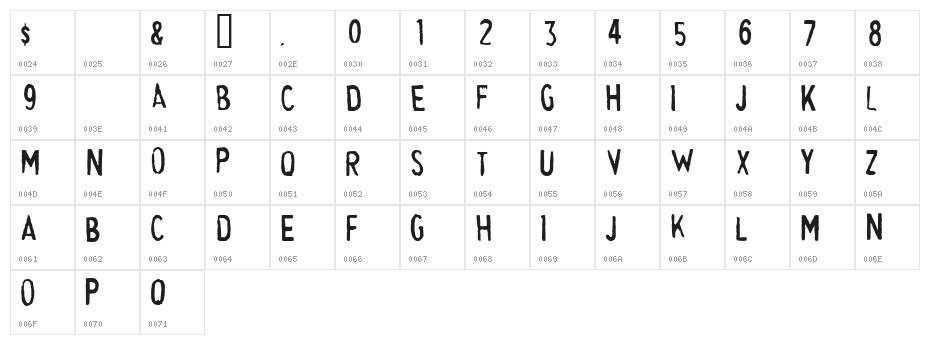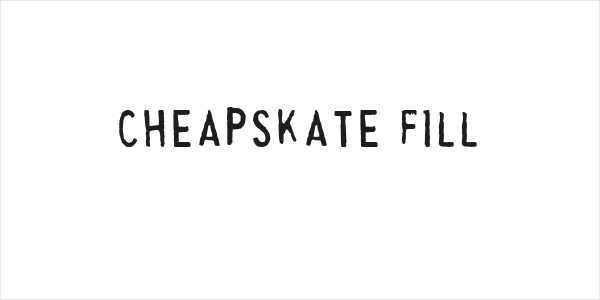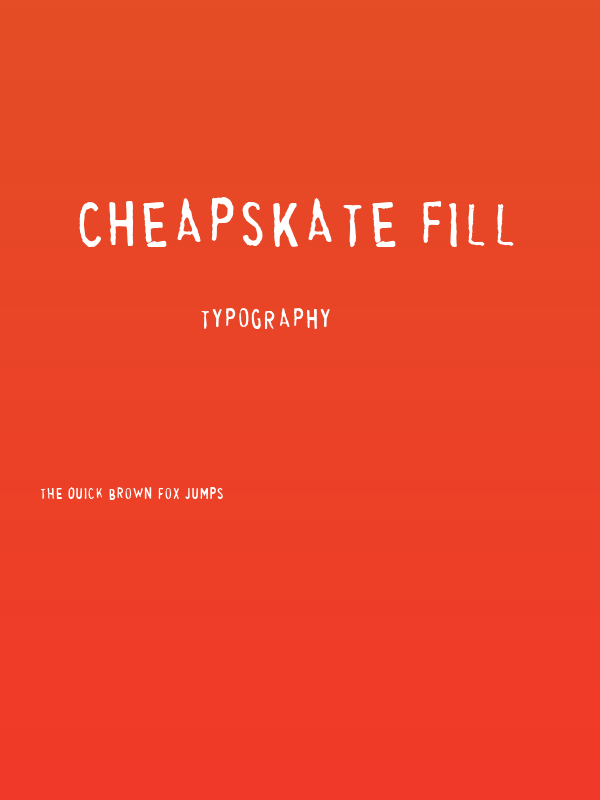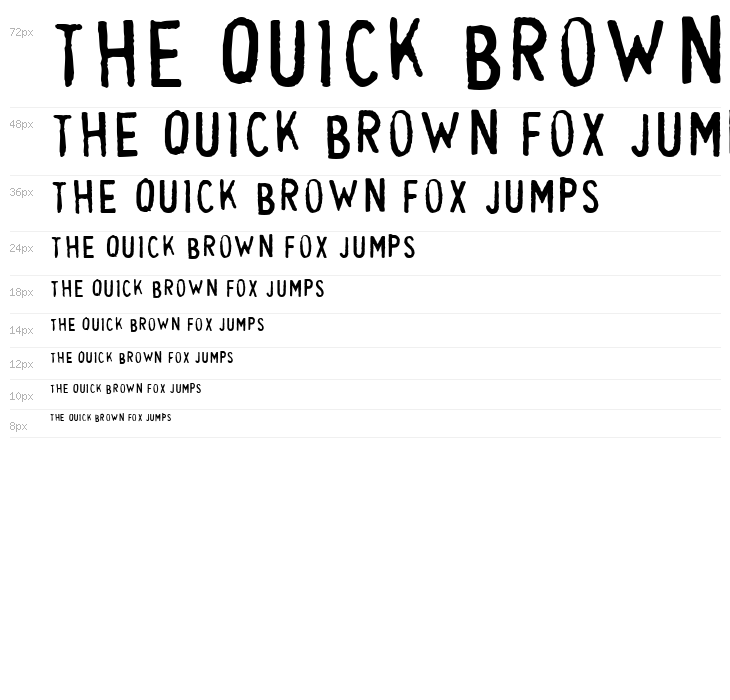
Cheapskate Fill Font
Cheapskate Fill Description
This font features a bold and rugged style with a hand-drawn appearance. The letters have an uneven, textured look, giving them a distressed and organic feel. The uppercase and lowercase characters maintain a consistent style, with slightly irregular edges that add to the font's charm. The numbers and special characters follow the same aesthetic, ensuring a cohesive look across all text elements. This font's unique style makes it stand out, offering a playful yet edgy vibe that can enhance creative projects.